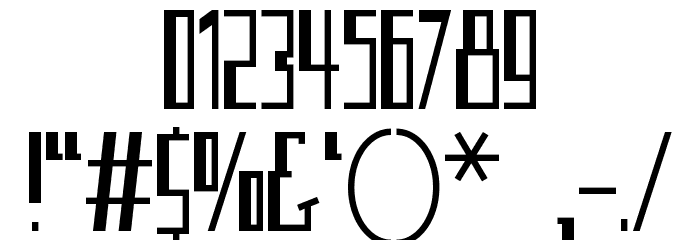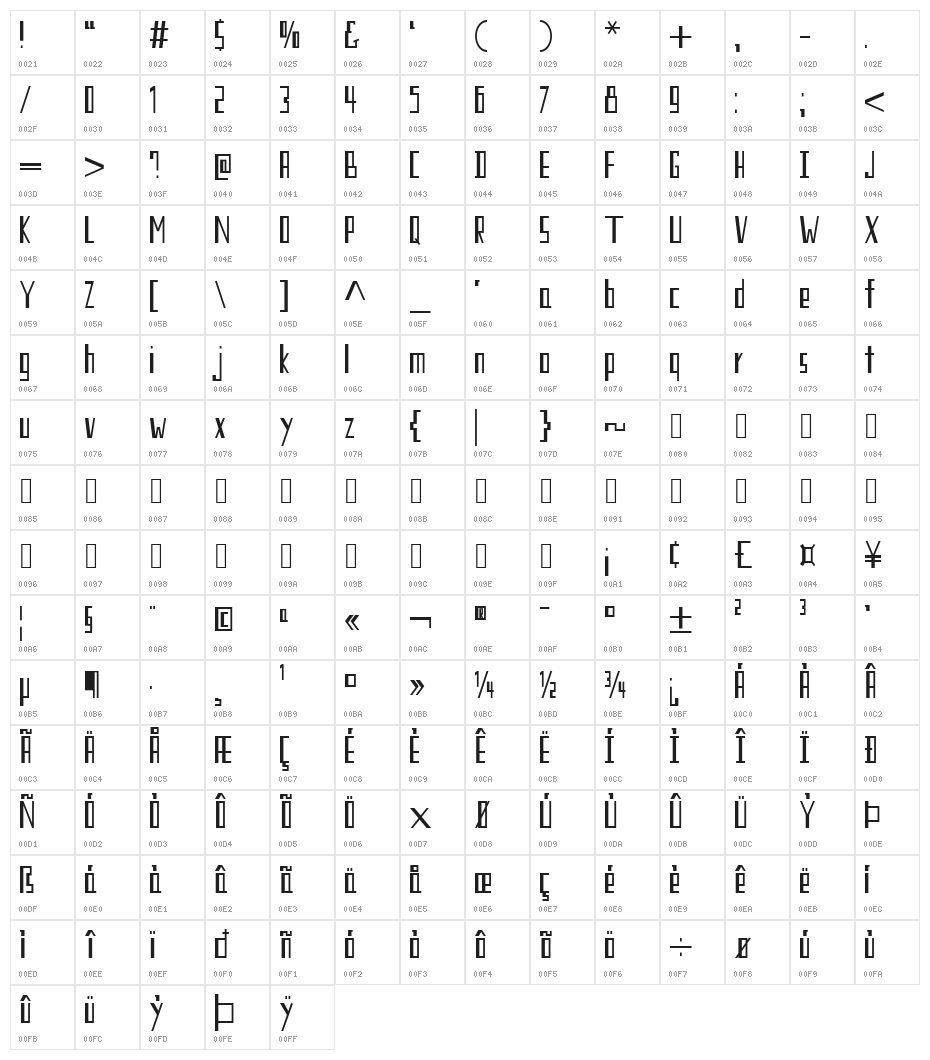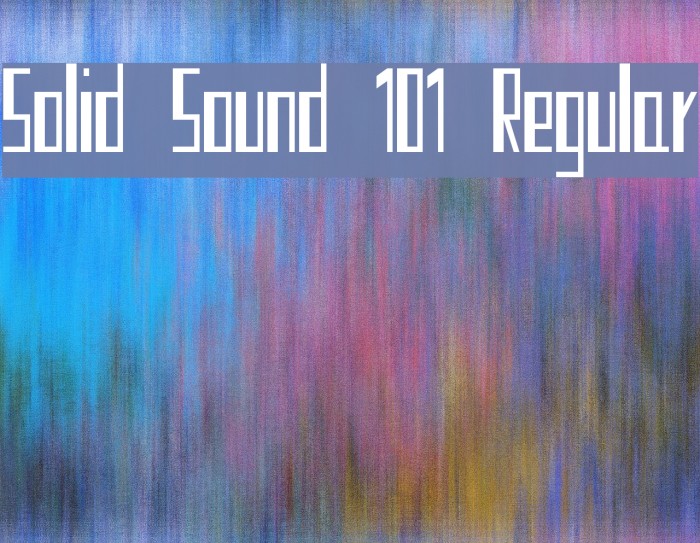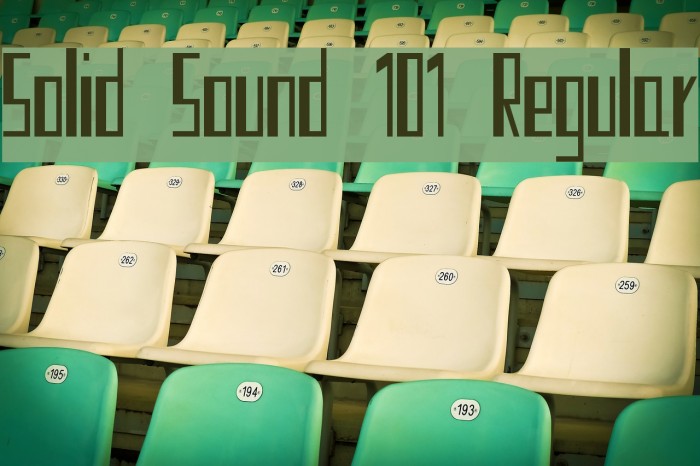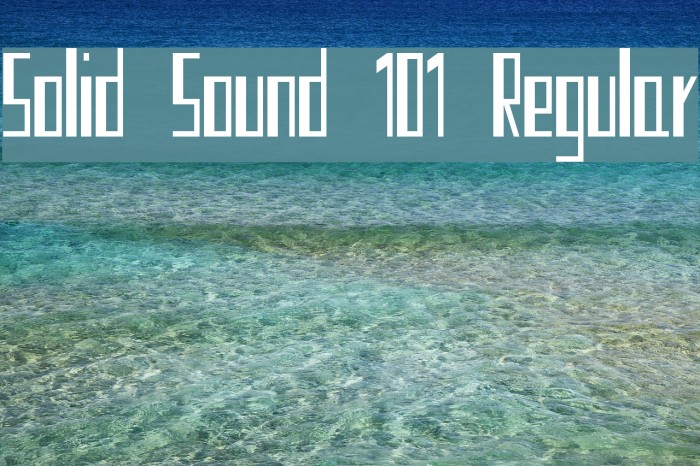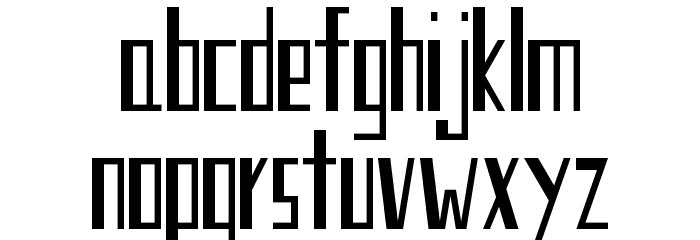
Solid Sound 101 Regular Font
Solid Sound 101 Regular Description
This font features a geometric and modern design, characterized by its tall, narrow letterforms and sharp angles. The uppercase letters have a uniform height, while the lowercase letters maintain a consistent baseline, contributing to a clean and structured appearance. The numerals are distinct and align well with the overall style, making them easily readable. Special characters are uniquely styled, adding a touch of creativity without compromising legibility. The font's design is suitable for contemporary themes, offering a sleek and stylish look that can enhance various visual projects.